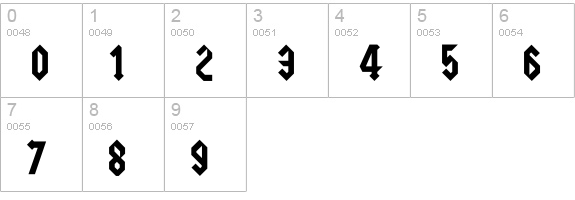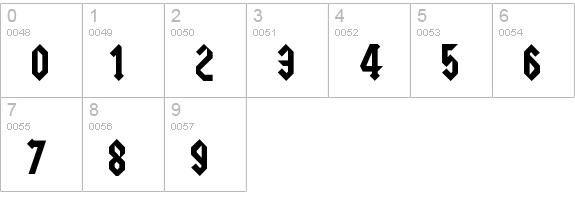
Introducing Squealer, a captivating and versatile font that is sure to make a lasting impression. With its bold and edgy design, Squealer exudes confidence and creativity, perfect for adding a touch of uniqueness to any project. This eye-catching font is not only visually stunning but also incredibly functional. Its distinct letter shapes and strong lines make it easily readable, ensuring that your message is delivered with clarity and impact. Whether used for headlines, logos, posters, or even social media graphics, Squealer will effortlessly grab attention and leave a memorable impression. But what truly sets Squealer apart is its accessibility. This remarkable font is available for free download exclusively at FontsMarket.com. With just a few clicks, you can add this extraordinary font to your collection, without any cost. This means that Squealer is not only a fantastic choice for professional designers, but also for students, hobbyists, and anyone looking to enhance their creative projects. Embrace the power of Squealer and let your imagination run wild. Whether you're designing a cutting-edge advertisement, a striking branding campaign, or simply looking to add a touch of personality to your personal projects, this font will elevate your work to new heights. With Squealer by your side, you'll stand out from the crowd and make a bold statement with every word. Don't miss out on this incredible opportunity to get your hands on Squealer font for free. Head over to FontsMarket.com now and unlock the potential of this extraordinary typeface. Your designs will thank you for it.